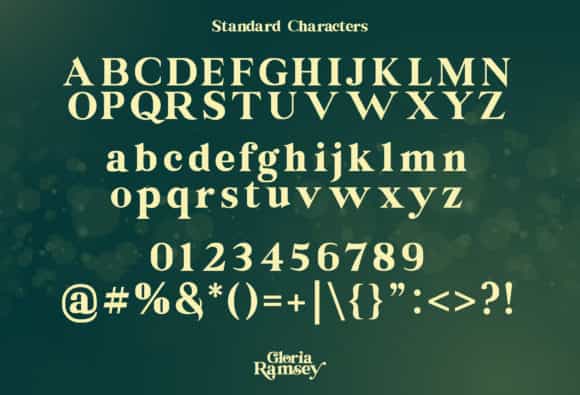
Meet Gloria Ramsey – a serif font featuring over 150 hand illustrated alternates and a preserved texture that blends charm with a modern touch. Each letter boasts a exterior that complements the soft traditional details of Gloria Ramsey beautifully.